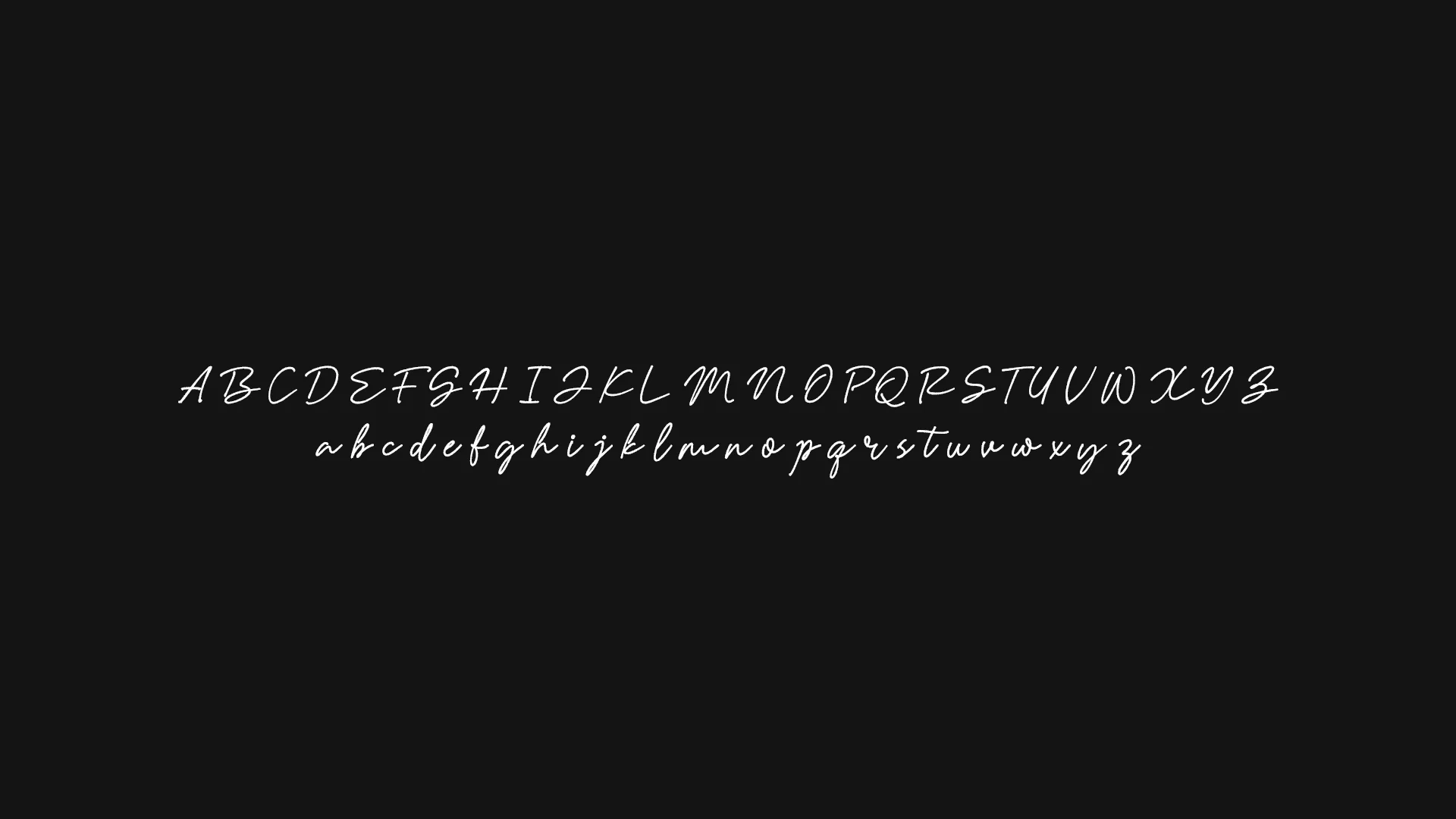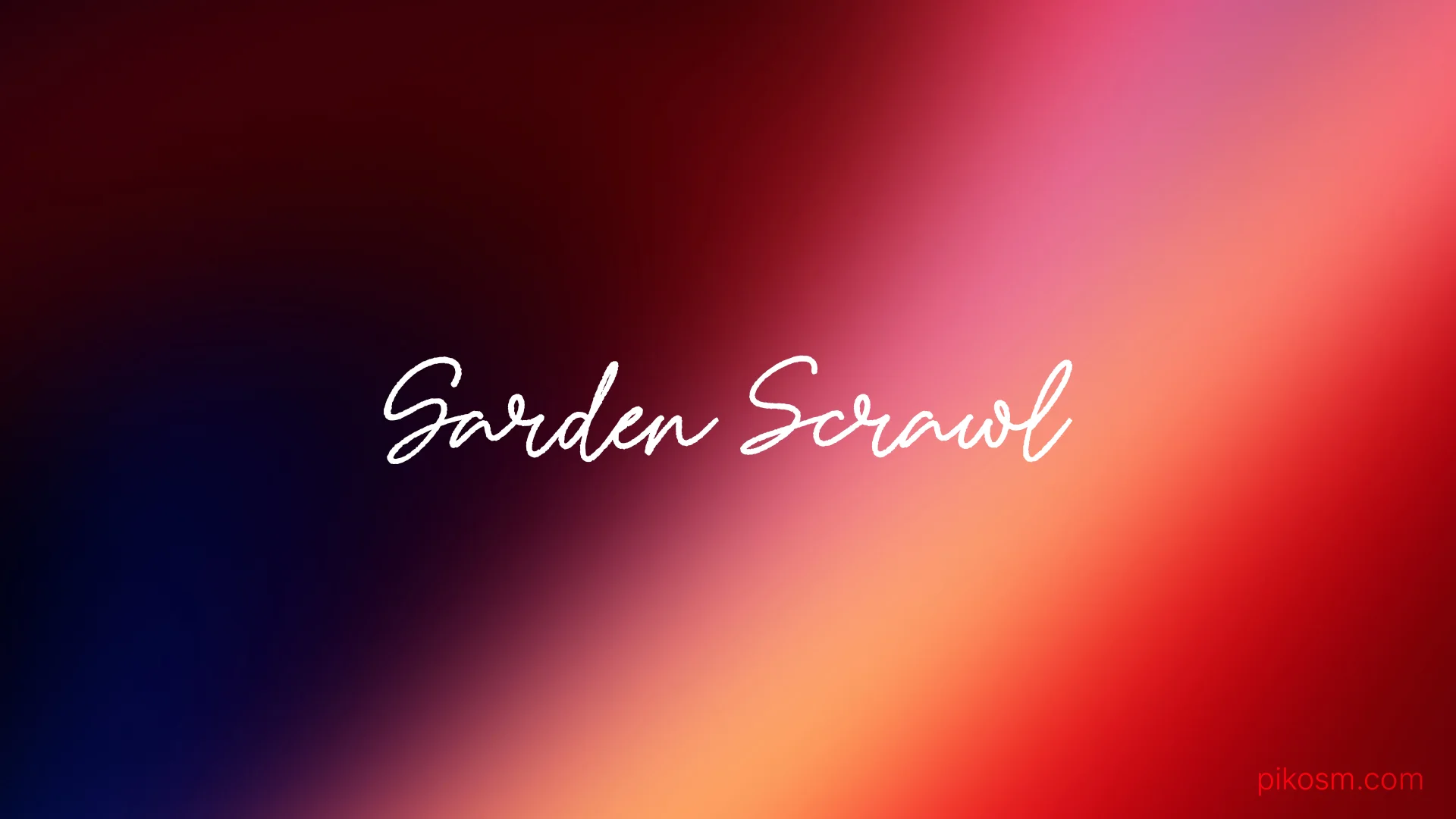
Download Free Garden Scrawl Font – Playful Handwriting Font
The Garden Scrawl Font is a fun and playful handwriting font that brings a casual, creative vibe to your designs. Ideal for logos, greeting cards, social media graphics, invitations, and other creative projects, it adds a lively and unique personality to your work.